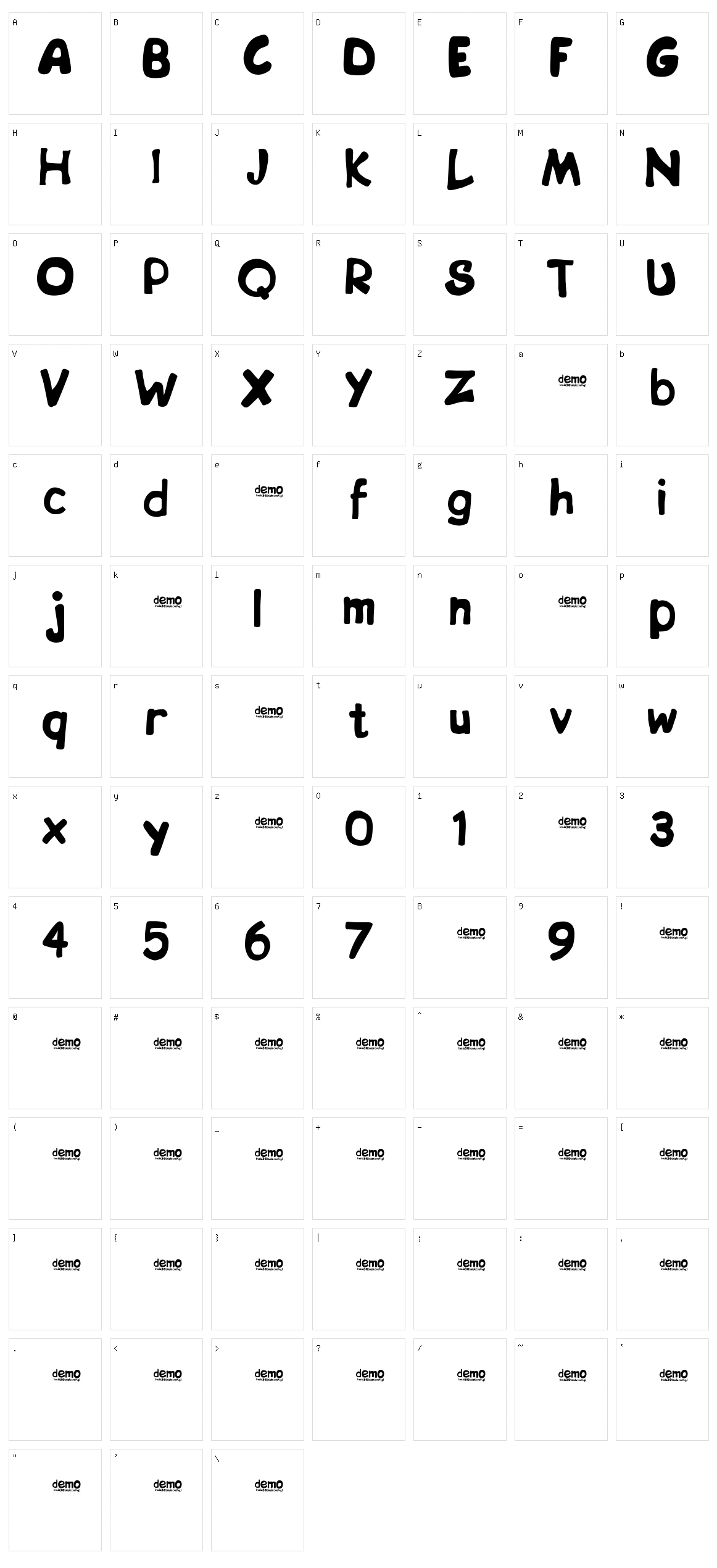
The free font Bip is carefully designed by Bysiu Pysiu, showcasing a thoughtful balance of creativity and usability and falls under the Cartoon font style. When you download the ZIP file, it contains only 24.5 KB of font files, making it lightweight and quick to download. Please review the license details below to understand permitted usage and distribution rights. If license information is not available, we recommend using this font for personal projects only or contacting the author directly for commercial usage permissions.